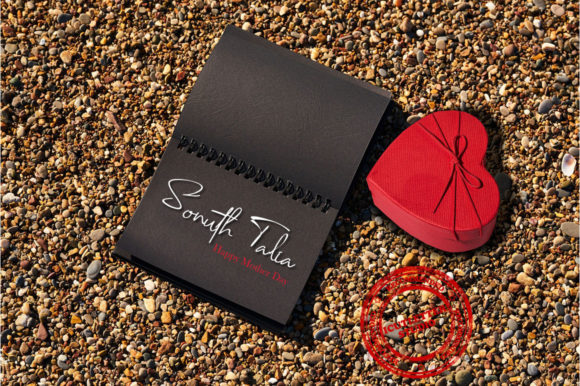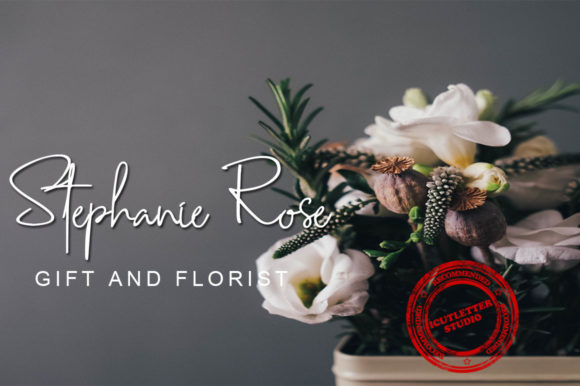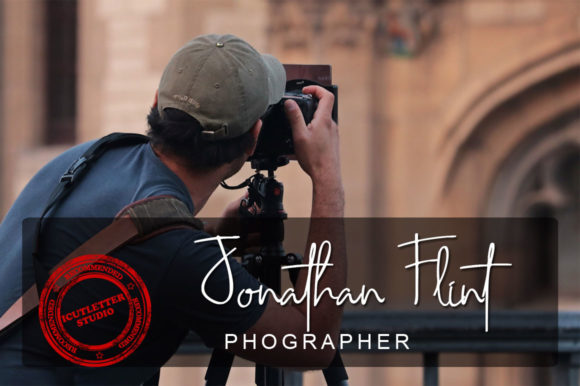
Introduction to Roseanne Font
The Roseanne is an amazing handwritten signature script.
It has a modern style and includes beautiful and elegant letters It’s perfect for adding a striking look to your signatures, magazines, quotes, logos, blog headers, posters, branding, fashion, apparel, letters, invitations, stationery, and much more.
Roseanne Font offers exceptional quality and versatility, making it a valuable addition to your design toolkit. Whether you’re creating for personal projects or commercial use, Roseanne Font delivers professional results.